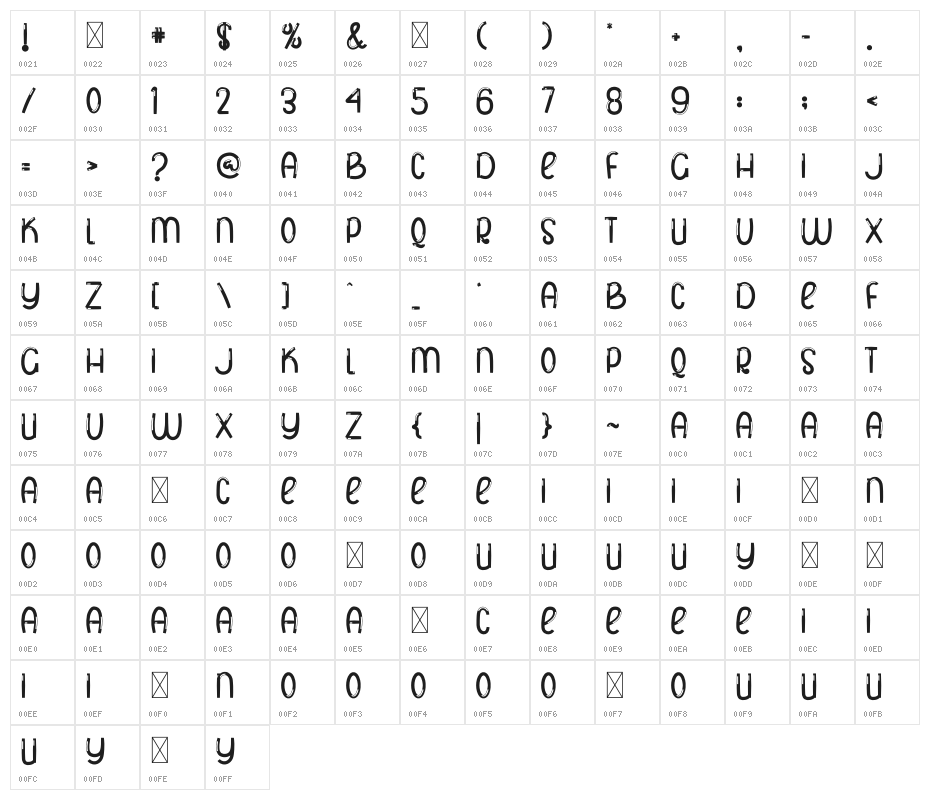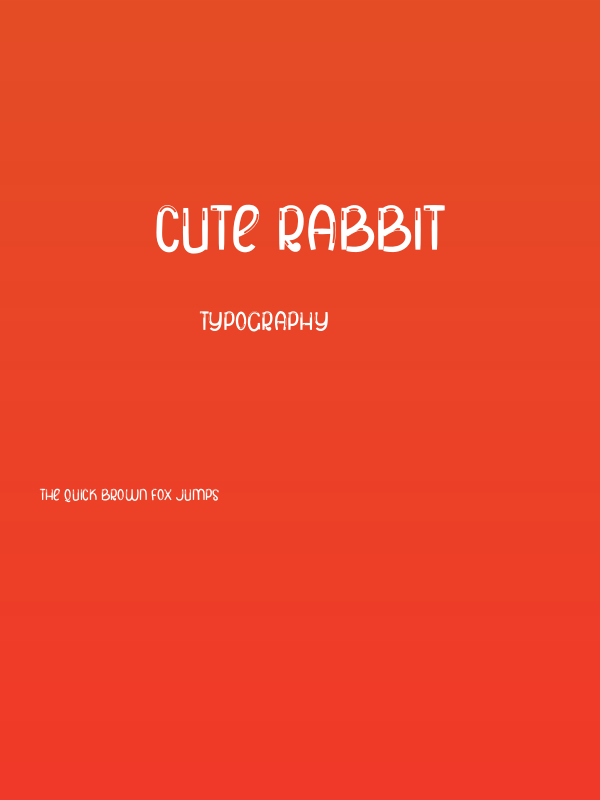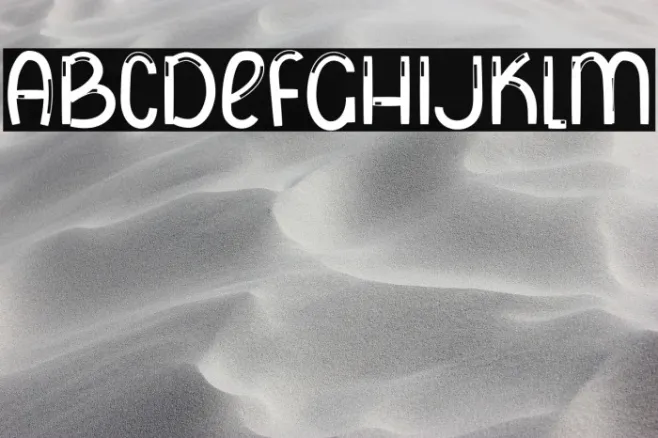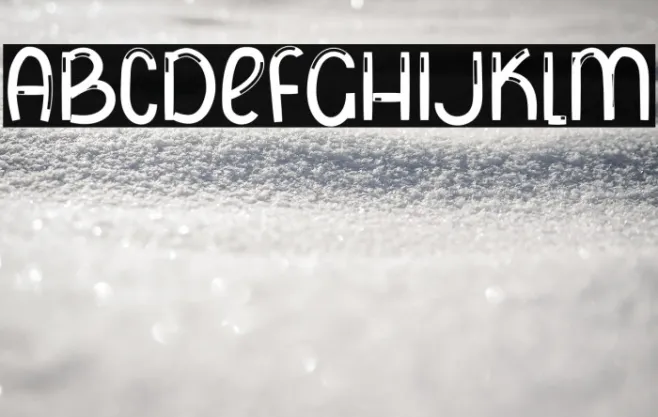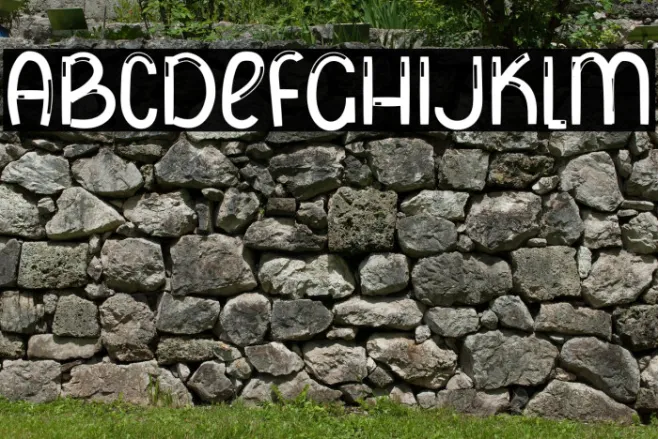
CUTE RABBIT Font
CUTE RABBIT Description
This playful and whimsical font features a unique blend of bold and rounded characters with a decorative flair. Each letter is designed with a playful twist, incorporating elements that give it a hand-drawn, cartoonish feel. The strokes are thick and consistent, providing a strong visual impact. The font includes both uppercase and lowercase letters, numbers, and a variety of special characters, making it versatile for various design needs. Its distinctive style is perfect for projects that require a fun and engaging typeface.
| Overall Style | Playful, Whimsical, Cartoonish |
| Proposed Projects | Ideal for children's books, playful branding, greeting cards, and creative posters. |